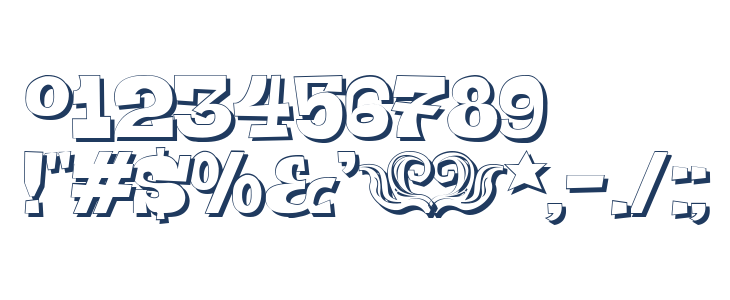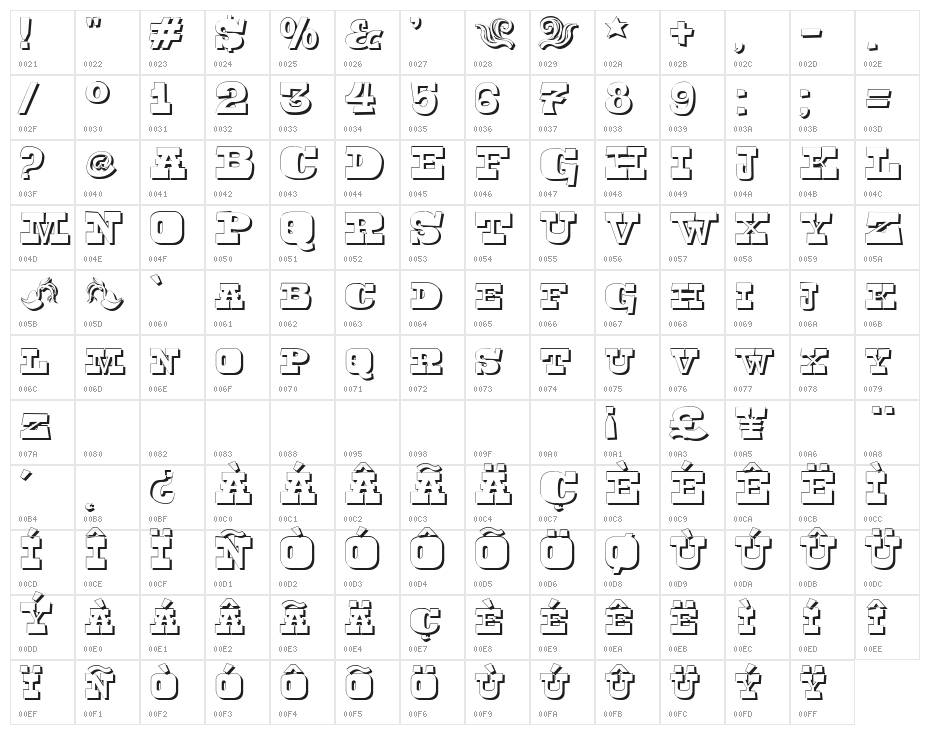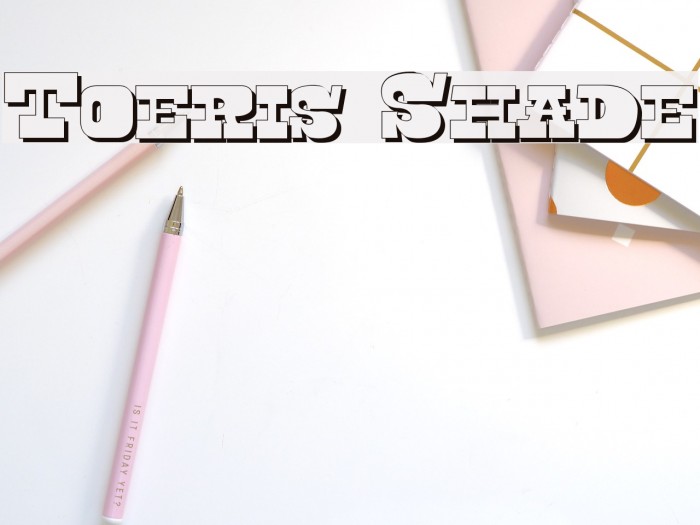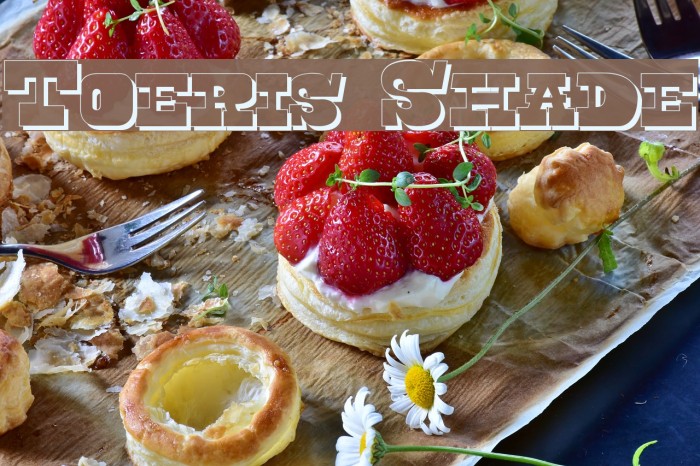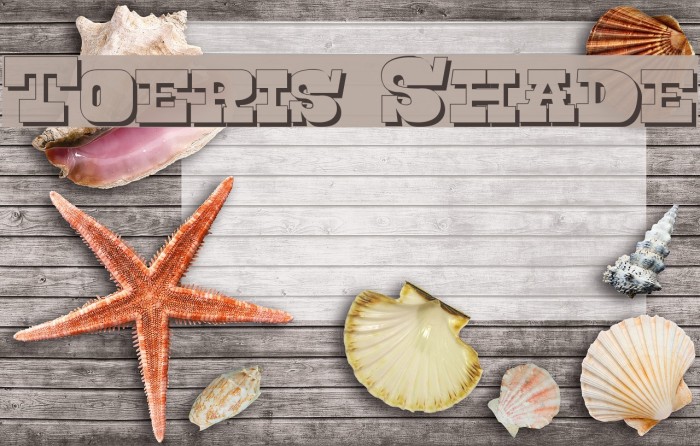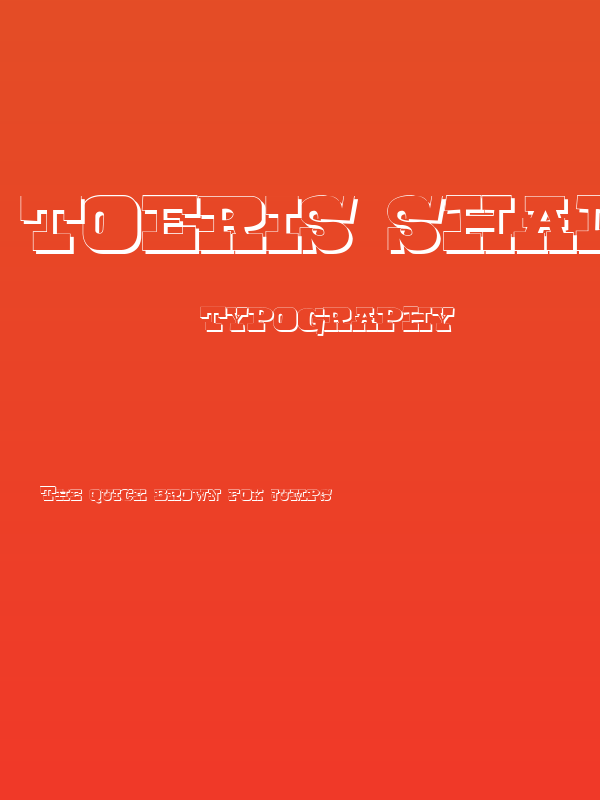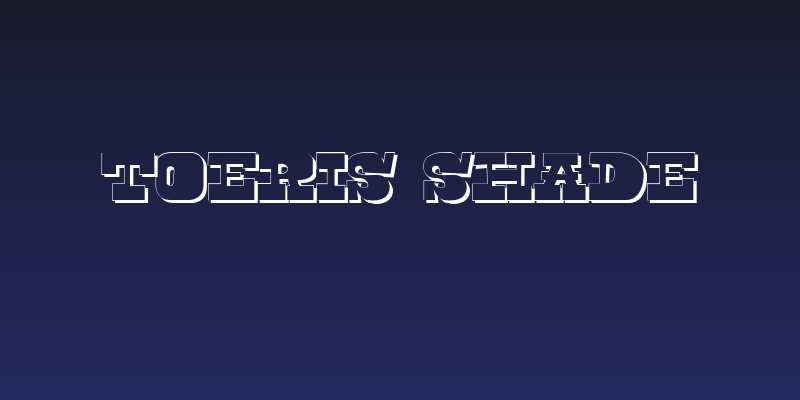
Toeris Shade Font
Toeris Shade Description
This font features a bold, three-dimensional design with a strong shadow effect, giving it a striking and impactful appearance. The characters are uppercase with a blocky, geometric style, and the shadow adds depth and dimension, making it ideal for attention-grabbing headlines or titles. The numbers and special characters follow the same bold and shadowed design, ensuring consistency across all glyphs. The font's style is reminiscent of vintage signage or posters, with a modern twist that makes it versatile for various design projects.
| Proposed Projects | Perfect for vintage-themed posters, signage, logos, and any project requiring a bold, attention-grabbing typeface. |